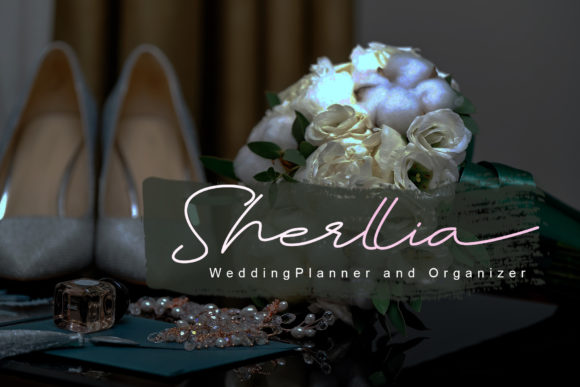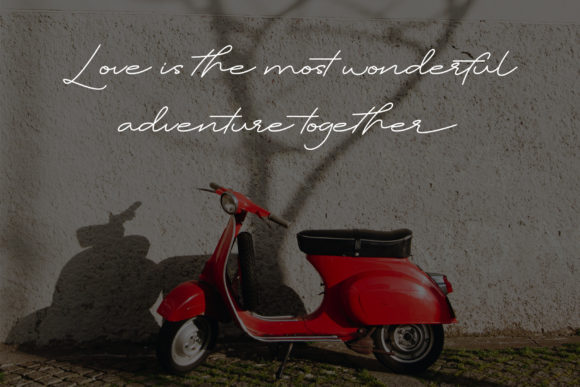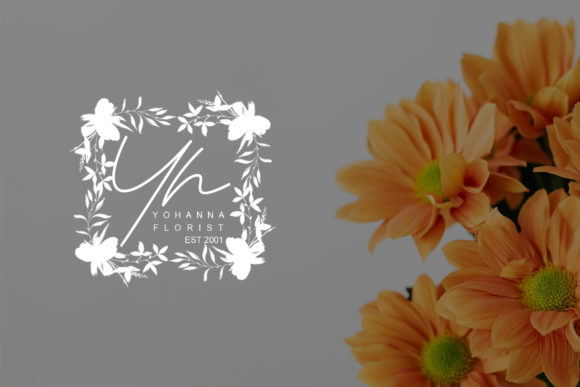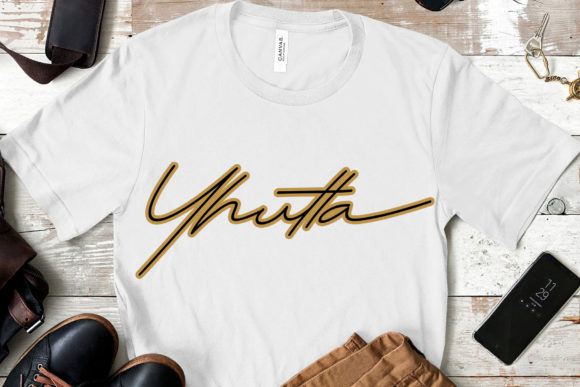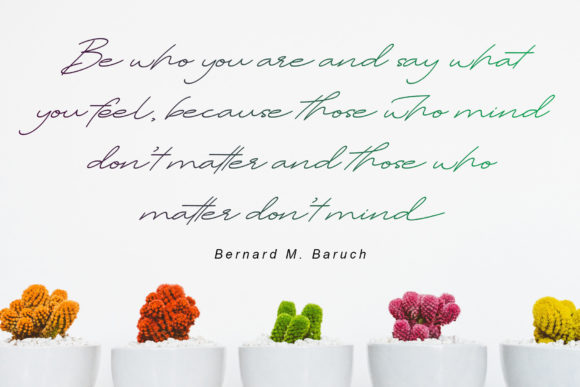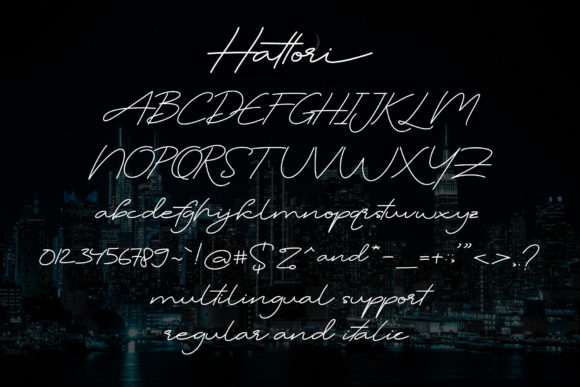
Hattori Font: Elevate Your Designs with a Timeless Handwritten Style
In the world of typography, a font can make or break a design. For designers and crafters looking to add a touch of elegance and sophistication to their projects, the Hattori Font is an excellent choice. This dazzling and timeless handwritten font is perfect for creating eye-catching logos, branding, and quotes that leave a lasting impression.
What Makes Hattori Font Stand Out?
Hattori Font boasts a unique and captivating style that sets it apart from other fonts. Its handwritten elegance exudes a sense of refinement and luxury, making it ideal for high-end branding, packaging, and advertising. The font’s flowing lines and curves create a sense of movement and fluidity, adding a dynamic touch to any design.
One of the standout features of Hattori Font is its PUA (Private Use Area) encoding. This means that users can access all the glyphs and swashes with ease, allowing for greater flexibility and creativity in design. With PUA encoding, designers can effortlessly navigate the font’s extensive character set, including ligatures, alternates, and ornaments, to create stunning and intricate designs.
Hattori Font is specifically designed to help designers create striking logos, branding, and quotes that capture attention and leave a lasting impression. Its elegant and refined style makes it perfect for:
- Logos: Create memorable and sophisticated logos that reflect your brand’s personality and values.
- Branding: Elevate your brand’s visual identity with a font that exudes luxury and refinement.
- Quotes: Add a touch of elegance to inspirational quotes, making them perfect for social media, posters, and other marketing materials.
Why Choose Hattori Font?
With so many fonts available, why choose Hattori Font? Here are just a few reasons why designers and crafters love this font:
- Unique Style: Hattori Font boasts a distinctive and captivating style that sets it apart from other fonts.
- Ease of Use: PUA encoding makes it easy to access all glyphs and swashes, allowing for greater flexibility and creativity in design.
- Timeless Appeal: The font’s classic and elegant style ensures it will remain timeless and relevant for years to come.
- Versatility: Hattori Font is perfect for a wide range of design projects, from logos and branding to quotes and packaging.
Tips for Using Hattori Font
To get the most out of Hattori Font, here are some tips for designers and crafters:
- Experiment with Swashes: Take advantage of the font’s PUA encoding to experiment with different swashes and glyphs.
- Play with Sizes: Hattori Font looks stunning in a variety of sizes, from large headings to smaller body text.
- Pair with Other Fonts: Combine Hattori Font with other fonts to create striking and unique typography.
In conclusion, Hattori Font is a stunning and versatile handwritten font that is perfect for designers and crafters looking to elevate their designs. With its unique style, ease of use, and timeless appeal, it’s an excellent choice for creating eye-catching logos, branding, and quotes. Whether you’re working on a high-end branding project or a personal craft project, Hattori Font is sure to impress.